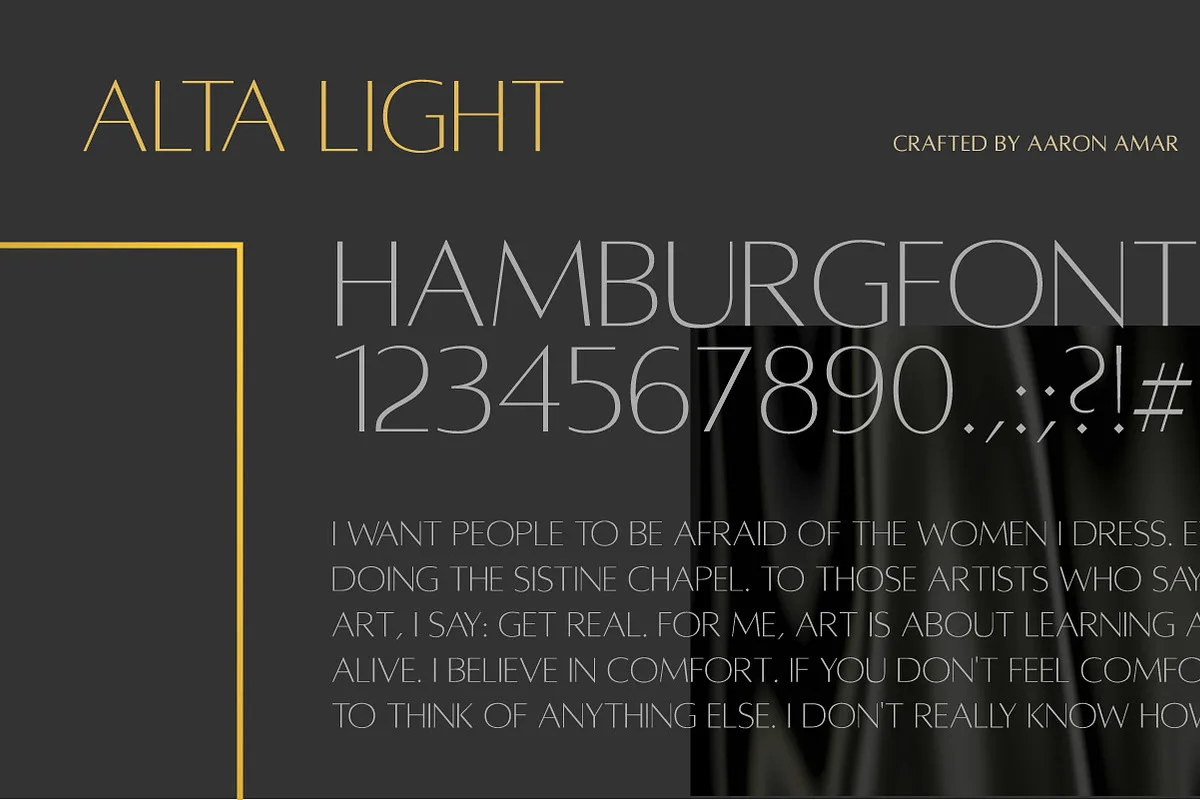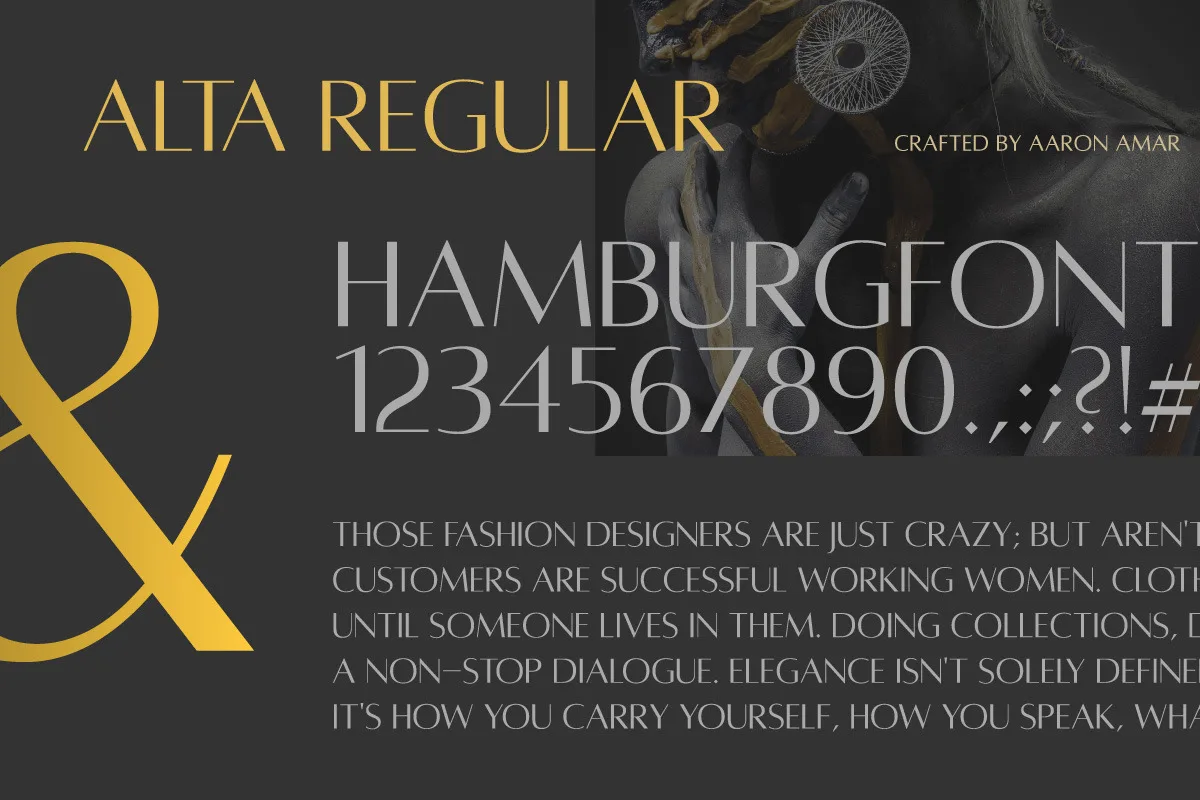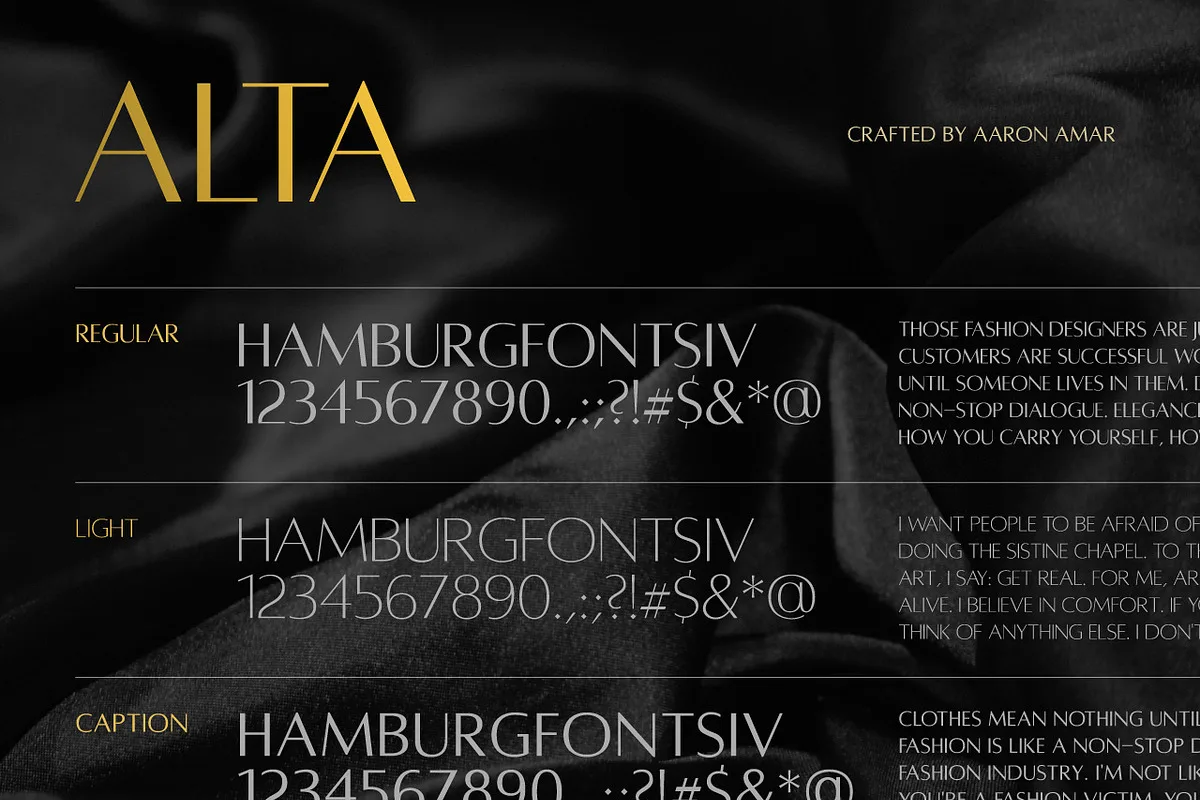
Alta Font is a refined all-caps sans serif display typeface inspired by classic humanist typography aesthetics. Designed with clean proportions and elegant letterforms, Alta delivers a timeless, editorial feel while remaining modern and highly readable.
With its roots in humanist design principles, Alta strikes a balance between clarity, sophistication, and visual warmth, making it an excellent choice for premium display typography.
Included Font Styles
This Alta Typeface package includes three carefully designed styles:
- Alta Regular
- Alta Light
- Alta Caption